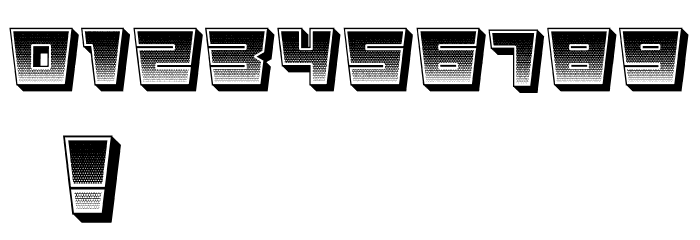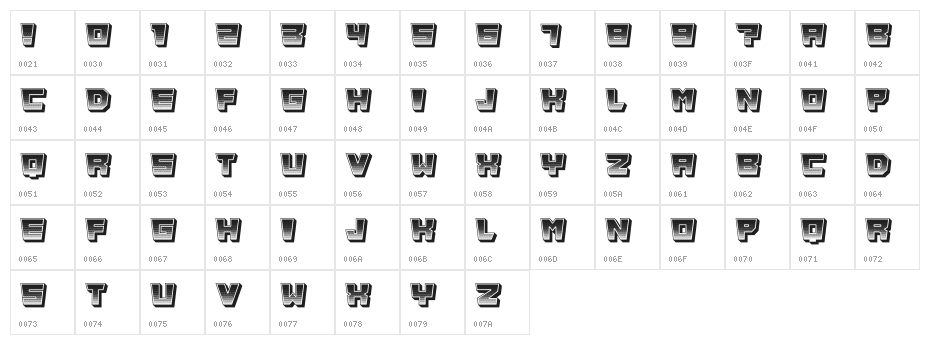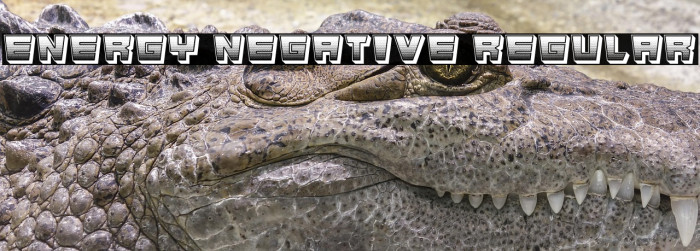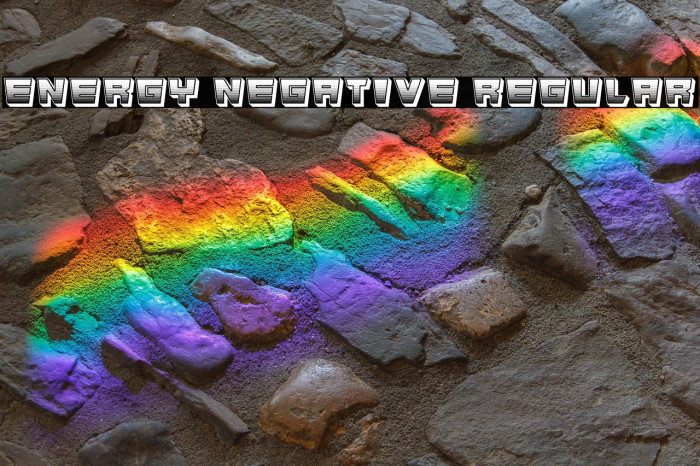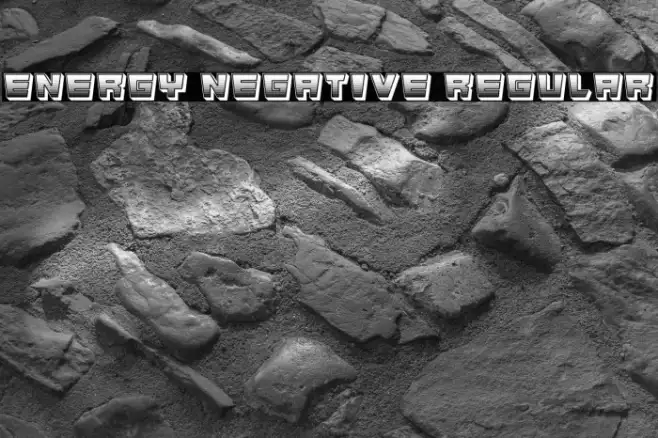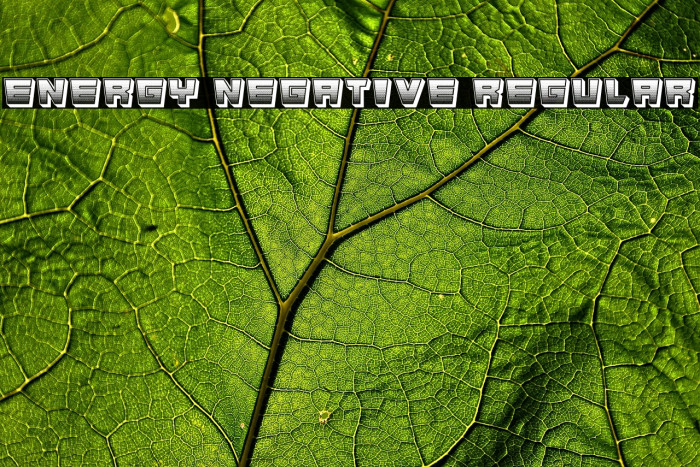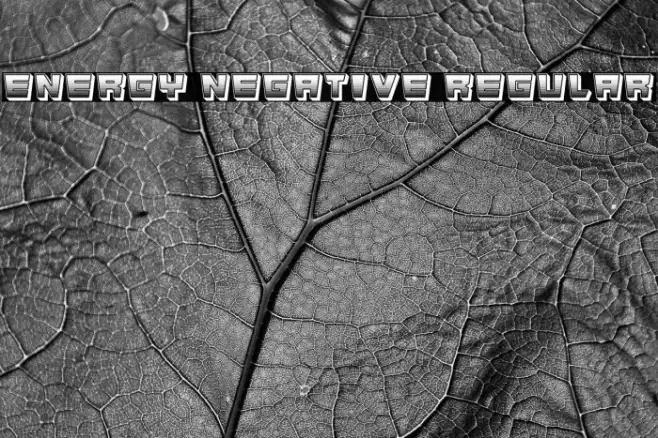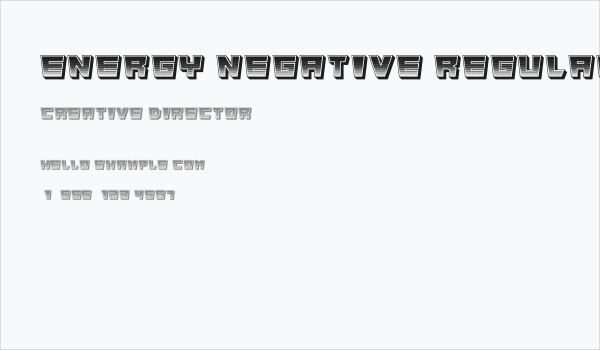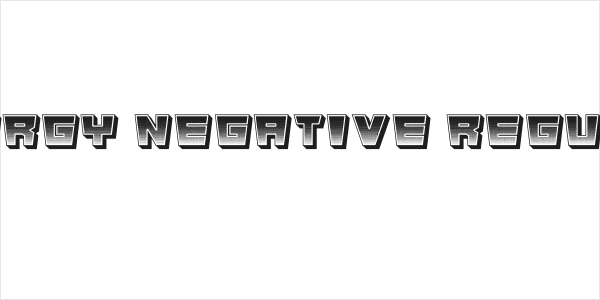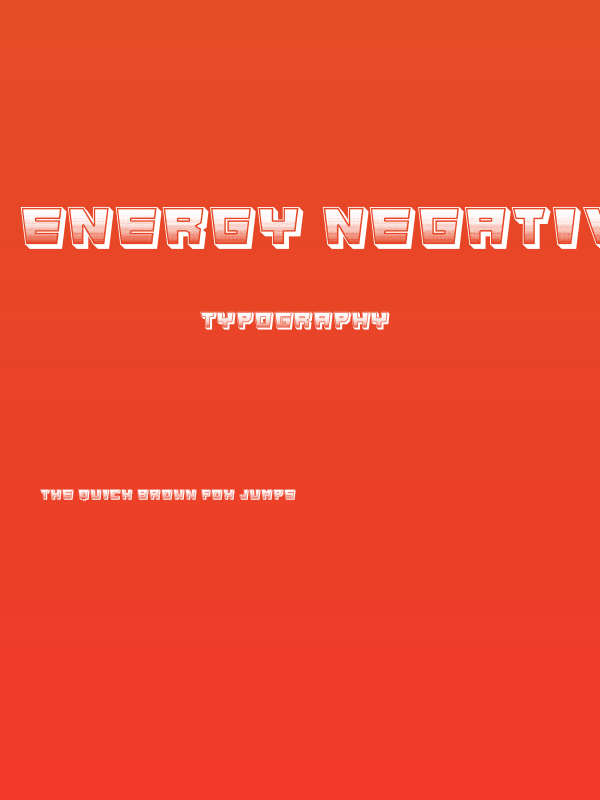
Energy Negative Regular Font
Energy Negative Regular Description
This font features a bold, three-dimensional design with a distinct shadow effect that gives each character a sense of depth and volume. The letters are uppercase and have a blocky, geometric style, with sharp edges and a textured fill that adds a dynamic, energetic feel. The numbers and special characters follow the same design principles, maintaining consistency across the set. The font's unique style makes it stand out, ideal for projects that require a strong visual impact.
| Proposed Projects | Ideal for posters, headlines, video game graphics, and branding that requires a bold statement. |